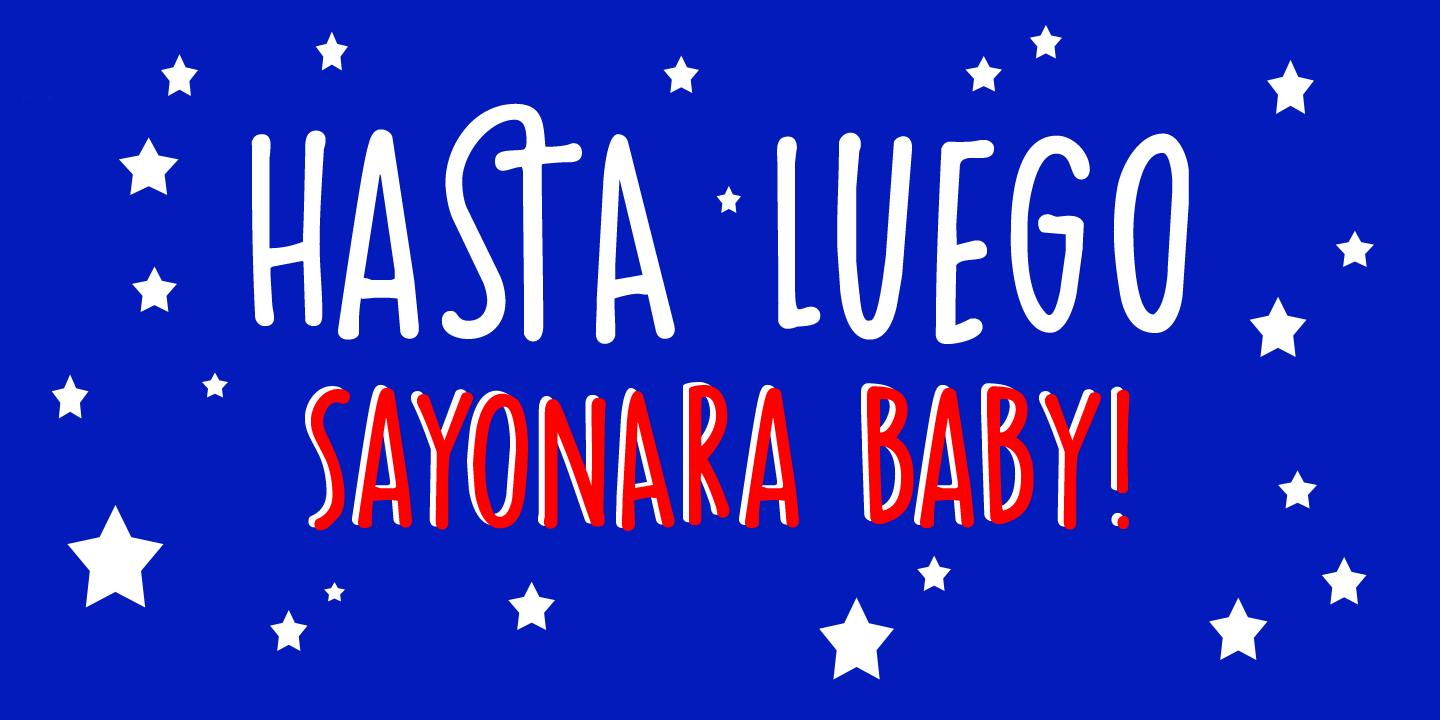
Hasta Luego Font is perfect for Mexican restaurant menus, Latin music album covers, fiesta party invitations, taco truck branding, salsa dance studio logos, Hispanic cultural event posters, cantina signage, and Spanish language learning materials.
Hasta Luego Font is exciting because it embodies the passionate energy of Latin culture with its bold, expressive letterforms that dance across the page like traditional folkloric movements. The typeface radiates warmth and celebration, instantly transporting viewers to vibrant plazas filled with music, laughter, and the rich heritage of Spanish-speaking communities.
Hasta Luego Font family includes Regular, Bold, Condensed, and Outline variants, giving designers flexible options for creating authentic Latin-inspired typography that captures the essence of Hispanic traditions and modern Latino aesthetics.
Whether you're creating promotional materials for a Mexican fiesta, designing a Spanish restaurant's brand identity, or developing educational content for language learning, Hasta Luego Font Free Download delivers the perfect blend of cultural authenticity and contemporary appeal. This remarkable typeface combines traditional Latin calligraphy influences with modern design sensibilities, ensuring your projects resonate with both heritage and innovation. The font's rhythmic character variations and festive personality make it ideal for headlines that need to convey celebration and community spirit. Designers appreciate how Hasta Luego Font transforms simple text into a visual fiesta, making it an indispensable tool for any project requiring genuine Latino flair and cultural connection.